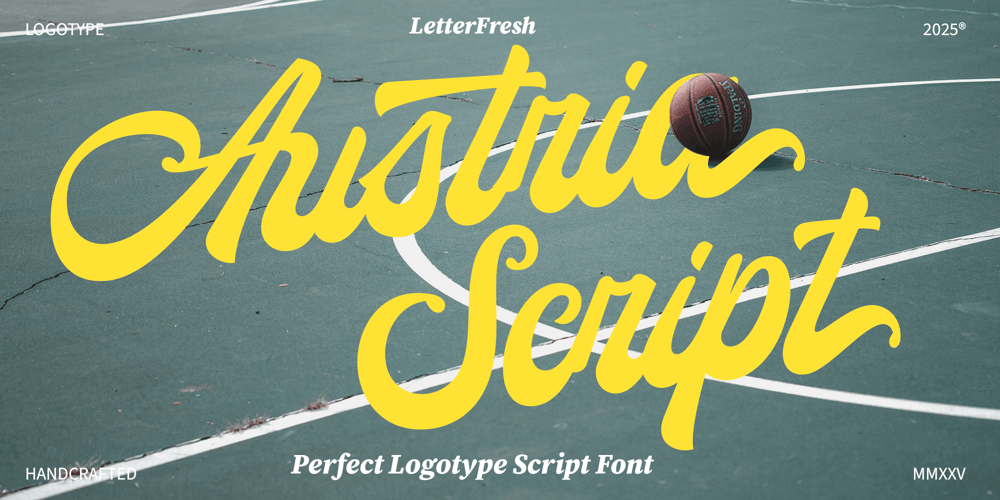
Austria Script
Austria Script font
Austria Script Font Family was designed by Rizki Andika and published by Letterfreshstudio. Austria Script contains 1 styles and family package options. Austria Script Inspired by Modern Vintage & Retro styles and a combination with old American traditional style.Austria Script allows you to create handwritten letters instantly and very practical. Ideal for logos, handwritten quotes, product packaging, headers, posters, merchandise, social media & greeting cards.FeaturesLatin Basic A-Z and a-zNumbersSymbolsStylistic CollectionLigaturesPUA EncodingMultilingual Support To enable the OpenType Stylistic alternative, you need a program that supports OpenType features such as Adobe Illustrator CS, Adobe Indesign & CorelDraw X6-X7.There are additional ways to access the alternative, using Character Map (Windows), Nexus Font (Windows), Font Book (Mac) or software programs such as PopChar (for Windows and Mac).Thank you!